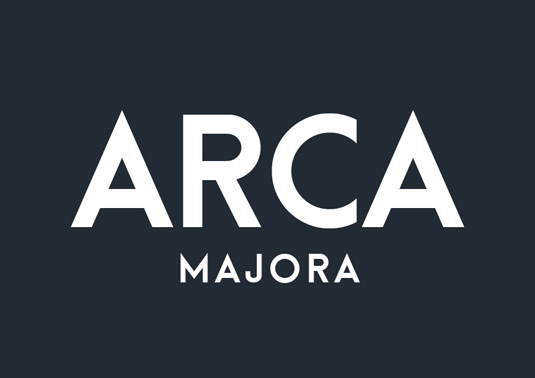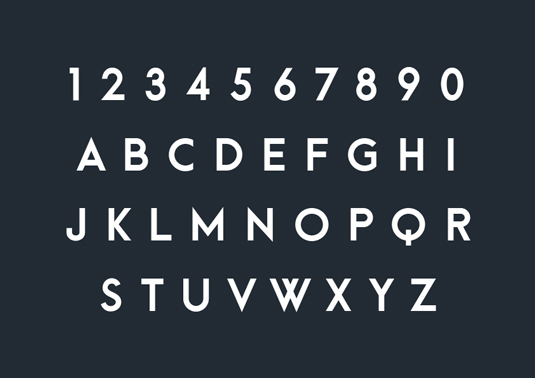
Font of the day: Arca Majora
Every day we showcase the best fonts on the web. Today it's Arca Majora by Alfredo Marco Pradil, which is totally free to download.
Arca Majora by Alfredo Marco Pradil
Geometric, sans serif typeface Arca Majora began as an uppercase latin alphabet drawing exercise by designer Alfredo Marco Pradil. Proving a popular design, Pradil spent time developing his font, which now also boasts punctuation symbols, accents and various language support.